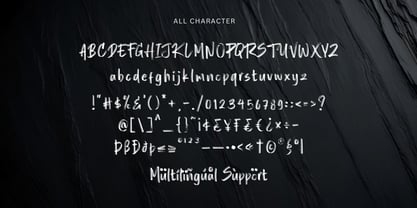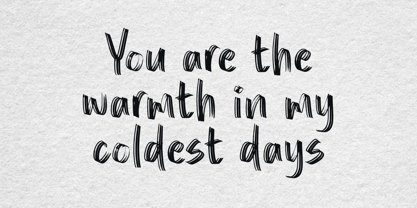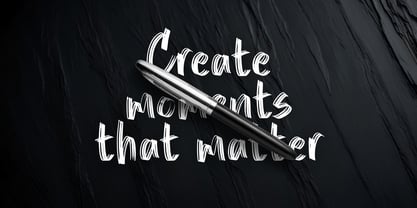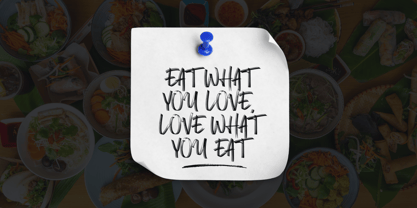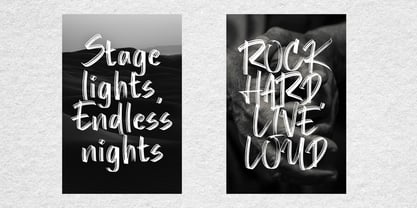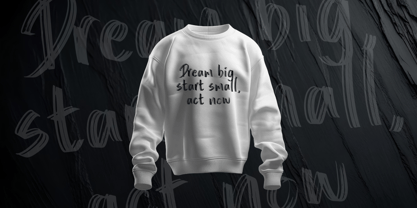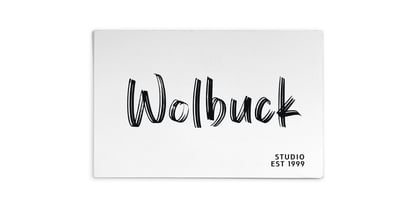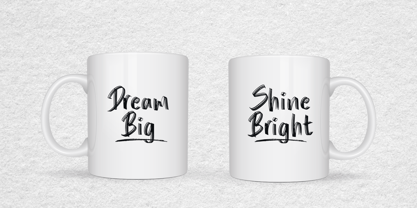
Rough Punch
by Sronstudio
The Rough Punch Font Family was designed by Muhamad Yusron Billah and published by Sronstudio. Rough Punch contains 1 styles. More about this family
Rough Punch is a bold and energetic handbrush font that delivers raw power and dynamic strokes. Its rugged texture and expressive brushwork make it perfect for posters, logos, branding, packaging, apparel, and any design that needs a strong and rebellious touch. Whether you're creating street-style artwork or bold advertising, Rough Punch packs a punch of personality and attitude.
- Uppercase & lowercase letters
- Numerals & punctuation
- Multilingual support